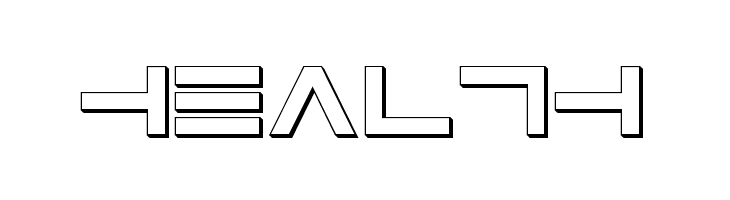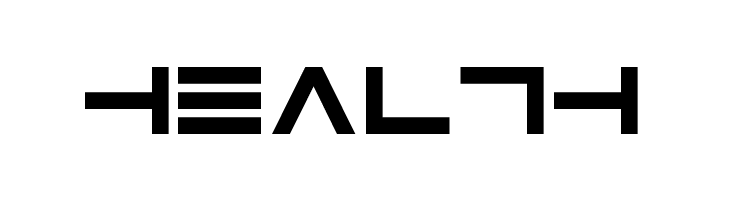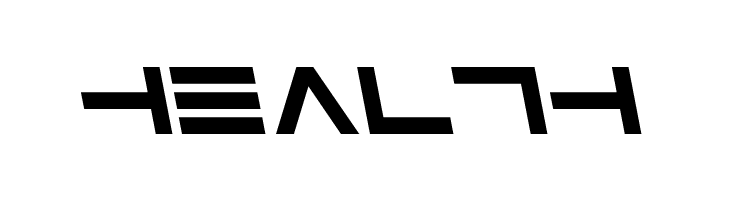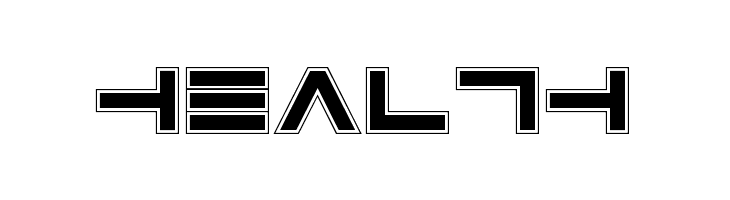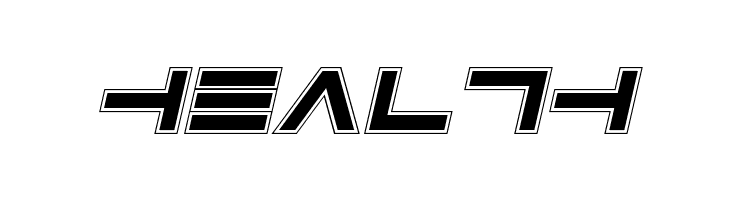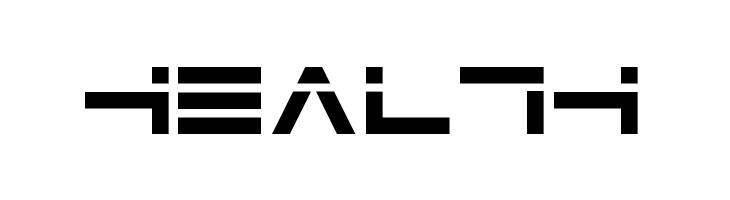
The Avengers Font
A bold, dynamic font with sharp angles and a futuristic style.
Avenger Font
A bold, geometric font with a futuristic, digital aesthetic.
Avengeance Mightiest Avenger Font
A bold, italicized font with strong, dynamic letterforms and a modern, impactful style.
The Mighty Avengers Font
A bold, dynamic font with a playful and energetic style.
Avengeance Heroic Avenger Normal Font
A bold, dynamic font with sharp angles and a superhero-inspired style.
Avengeance Heroic Avenger Bold Font
A bold, angular font with a dynamic, italicized style.
Avengeance Heroic Avenger Italic Font
A bold, italicized font with a dynamic and heroic style.
Avengero Regular Font
A bold, dynamic font with sharp angles and a modern, edgy style.
Avengeance Heroic Avenger Bold Italic Font
A bold, italicized font with a dynamic, heroic style.
Avenger Italic Font
A bold, futuristic italic font with sharp angles and geometric precision.
Avenger Laser Font
A futuristic, geometric font with bold, angular letterforms.
Avenger College Italic Font
A bold, italicized font with a futuristic, dynamic style and three-dimensional effect.
Avenger College Font
A bold, geometric font with angular shapes and a futuristic style.
Avenger Shadow Italic Font
A futuristic, angular font with a shadow effect and italic slant.
Avenger Laser Italic Font
A futuristic, angular font with a bold, italicized style.
Avenger Leftalic Font
A bold, angular font with a futuristic and geometric design.
Avenger Shadow Font
A bold, geometric font with a futuristic, outlined design.
Avengeance Heroic Avenger Normal Font
A bold, angular font with a dynamic and futuristic style.
Avenger 3D Font
A bold, geometric, 3D font with a futuristic and tech-inspired design.